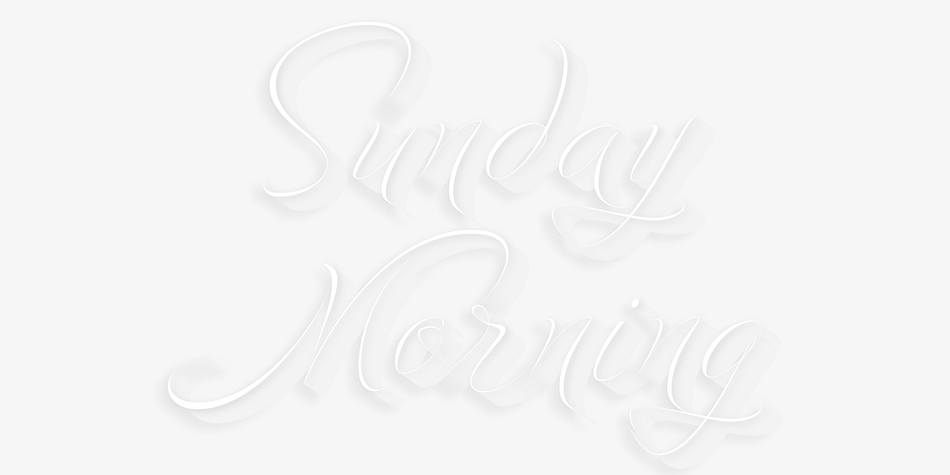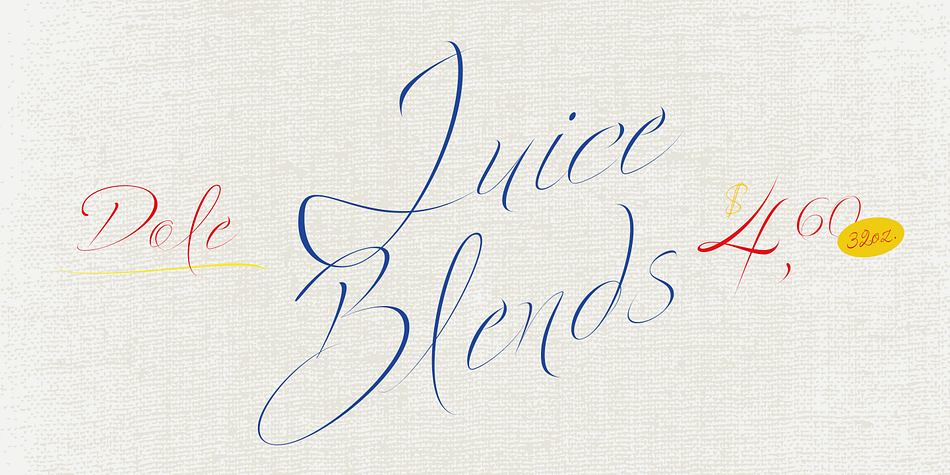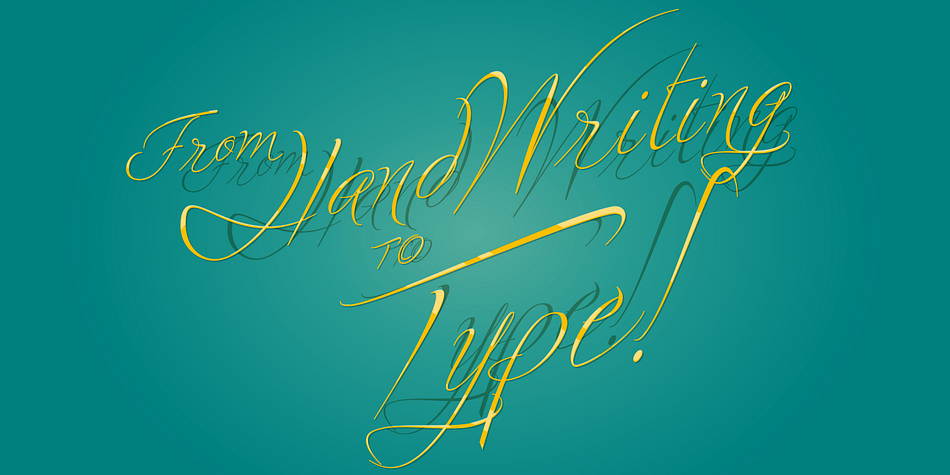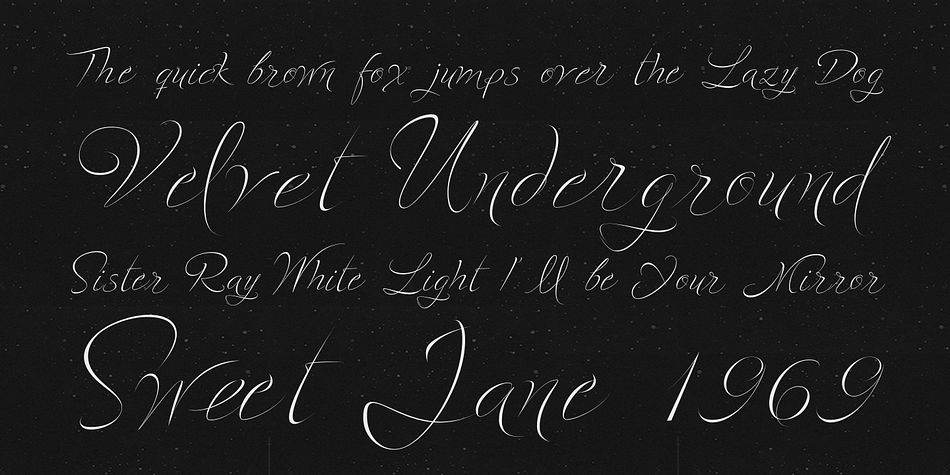
Starburst is a script font published by Resistenza.es.
Starburst is a gestural light script, created initially with an oblique nib for Copperplate and pencil. The idea was to interpret a real expressive energetic and gestural calligraphy, playing with pressures and angles following always a very dynamic flow. Rhythmical and full of grace, Starburst is the best fusion between calligraphy and typography. Every stroke has been sketched first by Giuseppe Salerno.